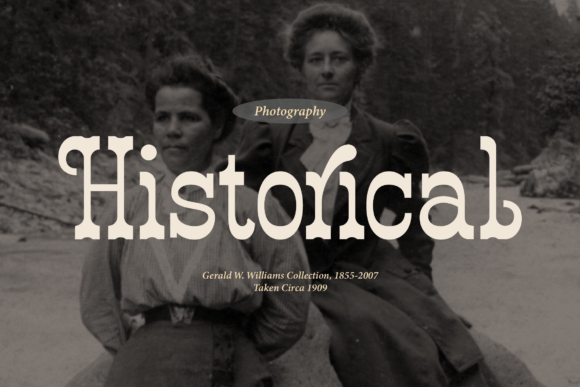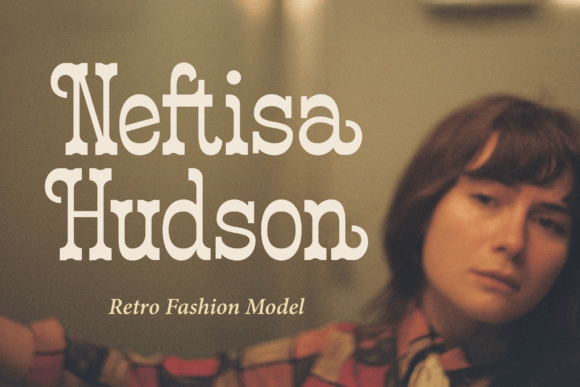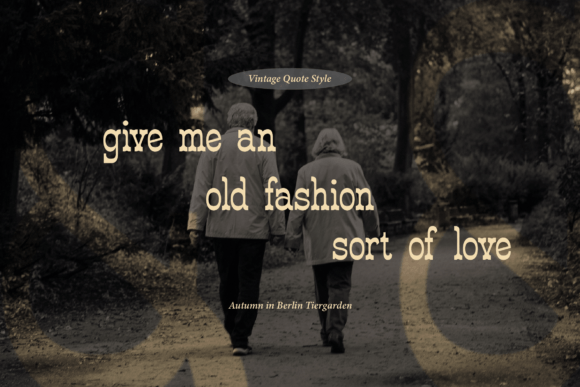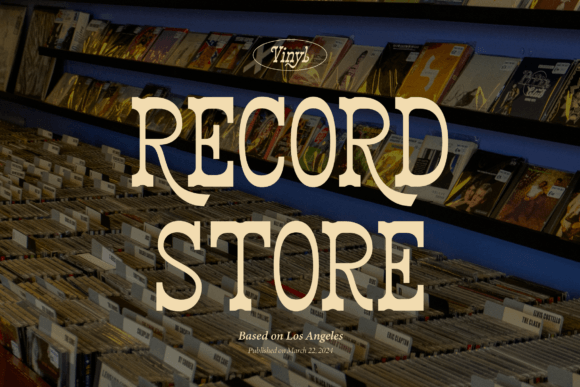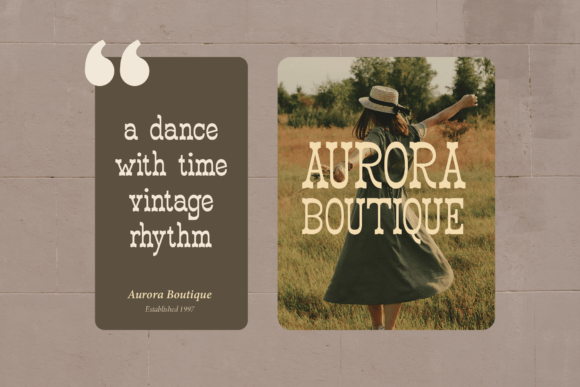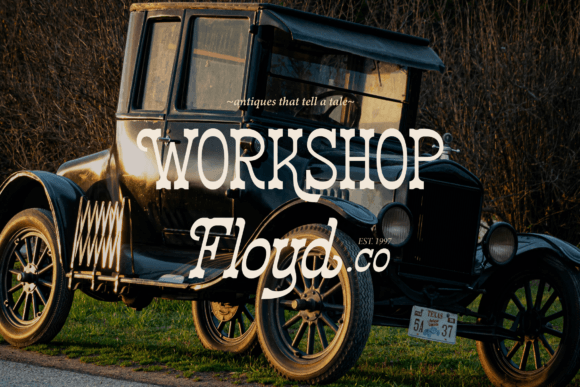
Erikoji Font: A Retro-Style Slab Serif for Bold Headlines and Vintage Vibes
Are you looking for a font that can add a touch of nostalgia and classic charm to your designs? Look no further than the Erikoji font. This retro-style slab serif font is perfect for creating bold headlines, adding a vintage feel to your designs, and making a statement. In this article, we’ll take a closer look at the Erikoji font, its features, and how you can use it to elevate your designs.
What is Erikoji Font?
Erikoji is a slab serif font that features thick, blocky letters with a classic look. Its strong lines and vintage feel make it great for bold headlines or giving designs an old-school vibe. The font is inspired by traditional Japanese typography and has a unique, retro aesthetic that’s perfect for designers who want to add a touch of nostalgia to their work.
Key Features of Erikoji Font
So, what makes Erikoji font so special? Here are some of its key features:
- Retro-style slab serif: Erikoji font has a classic, retro look that’s perfect for creating bold headlines and adding a vintage feel to your designs.
- Thick, blocky letters: The font features thick, blocky letters that are perfect for making a statement.
- Strong lines: Erikoji font has strong lines that give it a sturdy, solid feel.
- Vintage feel: The font has a unique, vintage aesthetic that’s perfect for designers who want to add a touch of nostalgia to their work.
How to Use Erikoji Font
So, how can you use Erikoji font in your designs? Here are some ideas:
- Bold headlines: Use Erikoji font to create bold, eye-catching headlines that grab attention.
- Vintage designs: Add a vintage feel to your designs by using Erikoji font in combination with other retro-style elements.
- Signage and posters: Erikoji font is perfect for creating eye-catching signage and posters that make a statement.
- Branding and logos: Use Erikoji font to create a unique, memorable brand identity that stands out from the crowd.
Why Choose Erikoji Font?
So, why should you choose Erikoji font for your designs? Here are some reasons:
- Unique look: Erikoji font has a unique, retro look that’s perfect for designers who want to stand out from the crowd.
- High-quality design: The font is designed with high-quality, crisp lines that make it perfect for use in a variety of design applications.
- Easy to read: Despite its bold, blocky letters, Erikoji font is easy to read, even at small sizes.
- Versatile: Erikoji font can be used in a variety of design applications, from bold headlines to signage and posters.
Tips for Using Erikoji Font
Here are some tips for using Erikoji font in your designs:
- Use it sparingly: Erikoji font is bold and eye-catching, so use it sparingly to avoid overwhelming your designs.
- Combine with other fonts: Combine Erikoji font with other fonts to create a unique, memorable look.
- Experiment with colors: Erikoji font looks great in a variety of colors, so experiment with different colors to find the one that works best for your design.
Erikoji font is a unique, retro-style slab serif font that’s perfect for creating bold headlines, adding a vintage feel to your designs, and making a statement. With its strong lines, thick, blocky letters, and vintage aesthetic, Erikoji font is a great choice for designers who want to add a touch of nostalgia to their work. Whether you’re creating signage, posters, or branding and logos, Erikoji font is a versatile, high-quality choice that’s sure to impress.